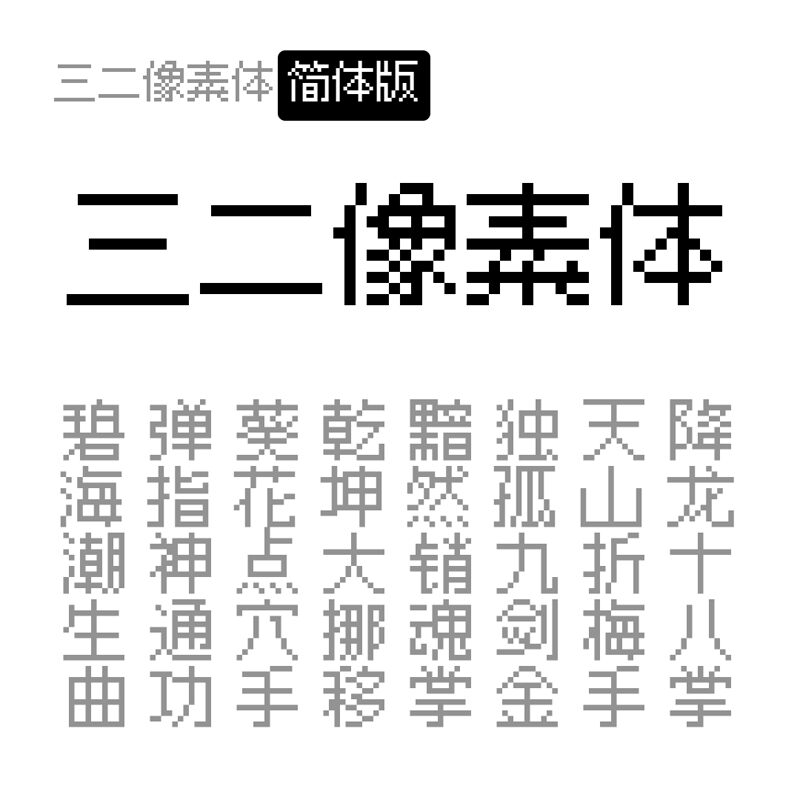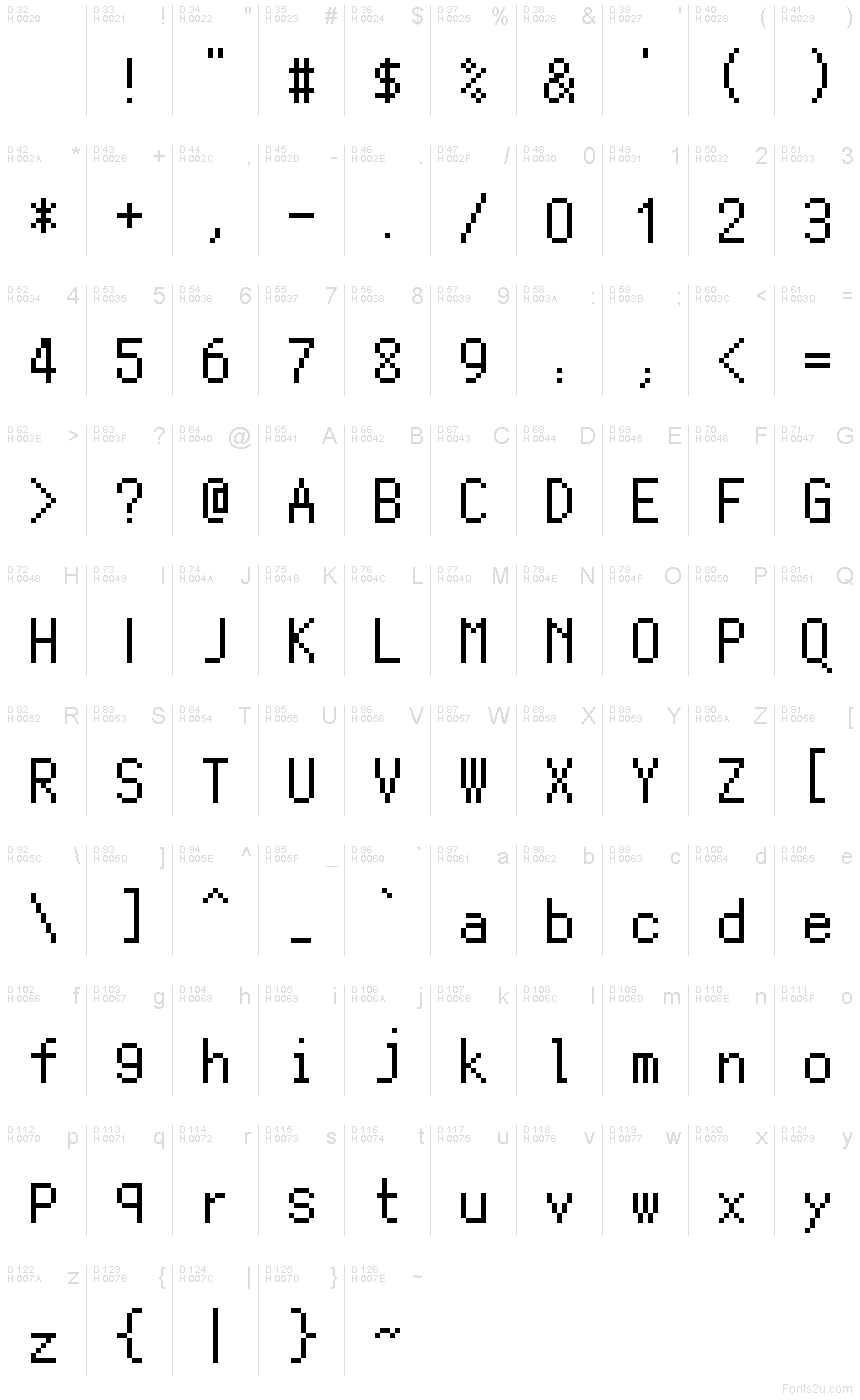
Pix32PixelFont
Pix32P font by Yu Job is a free pixelated bitmap typeface that hits that sweet spot between crisp readability and retro grit. Its square modules, stepped diagonals, and chunky rhythm feel straight off a cartridge—bold, punchy, and unmistakably 8-bit. Letters lock together with a sturdy cadence, so headlines snap and UI labels stay clean even at small sizes. For best results, set Pix32P on whole-number pixel sizes; pair it with a smooth neo-grotesk for body text to balance the texture.
Using Pix32P, you can nail retro game UIs, stream overlays, pixel-art posters, esports badges, app icons, and tech event titles. This free font thrives where instant impact and nostalgic energy matter, giving menus and callouts a grid-tight structure that reads fast. It also shines on stickers and limited-color merch, where its block shapes print clean without muddy edges.
Pix32 is a pixel Chinese font.